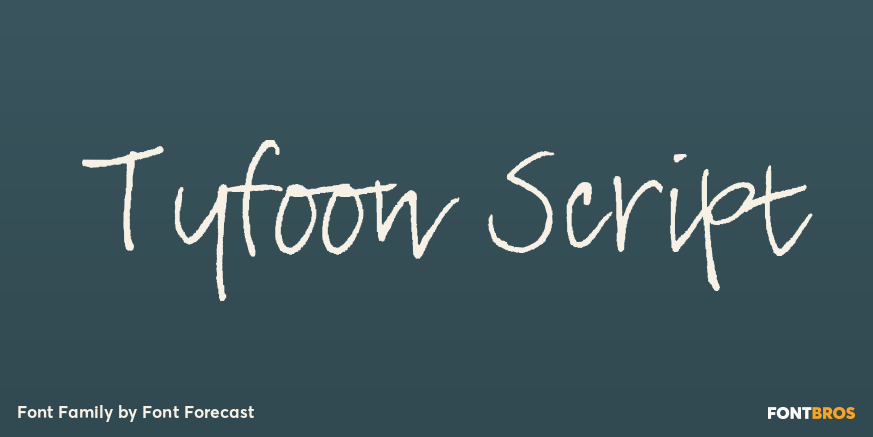
Tyfoon Script
About Tyfoon Script
Tyfoon Script is the handwritten relative of Tyfoon Sans. With its slightly rough contours it has a lot of personality and good legibility when used in small sizes. It consists of 719 glyphs, has multiple language support and comes in 3 weights. Stylistic…